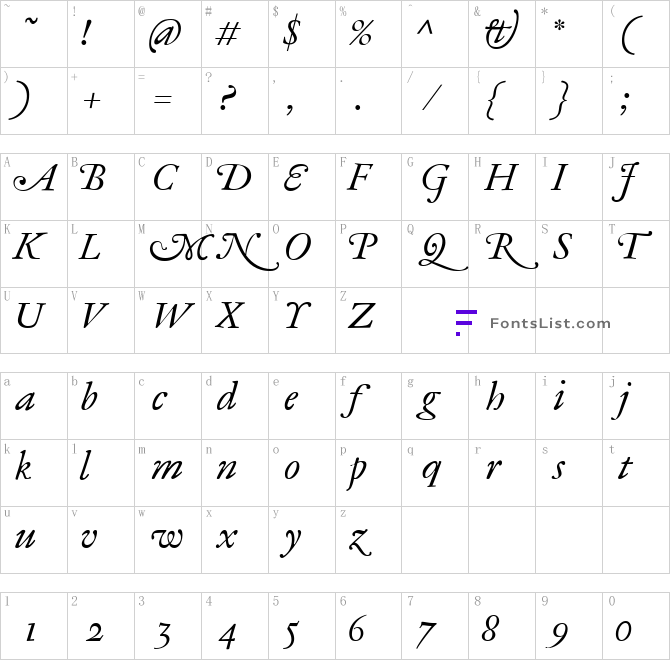
- Font Name:Antique Ancienne CE
Antique-Ancienne-CE-Italic.ttf is a very beautiful artistic font, Antique-Ancienne-CE-Italic.ttf is widely used in the design and printing of various books and pictures,Antique-Ancienne-CE-Italic.ttf has a strong visual impact,Antique-Ancienne-CE-Italic.ttf is a commonly used font in newspapers, magazines and books, and is used in posters, e-commerce Poster design, store design, logo design, font design and other fields.Antique-Ancienne-CE-Italic.